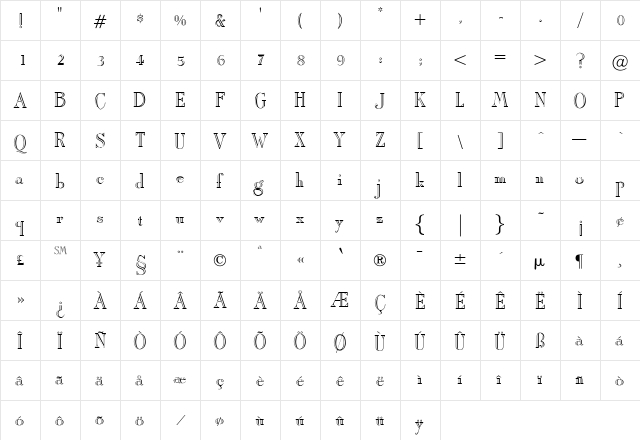
OPTIAmadeus Medium
Design Context for OPTIAmadeus Typeface
OPTIAmadeus offers clean, dependable letterforms without strong stylistic allegiance, making it a practical choice for designers who need flexibility.
Pro Tip: Use OPTIAmadeus in both headline and body roles to test its range before committing to a single application.